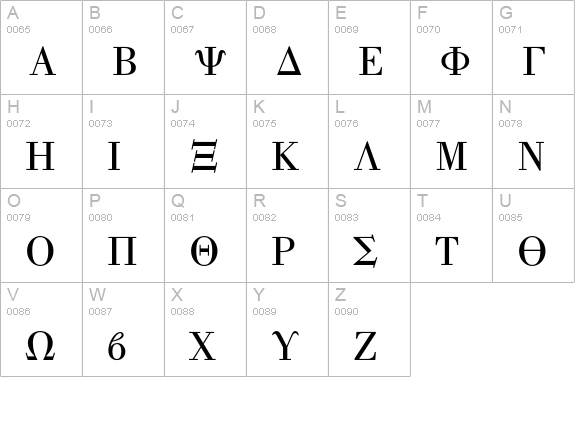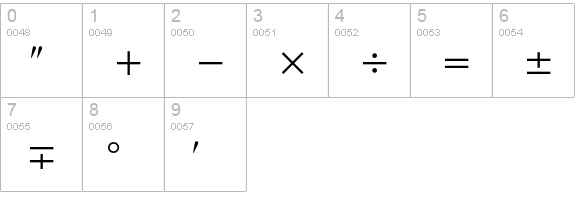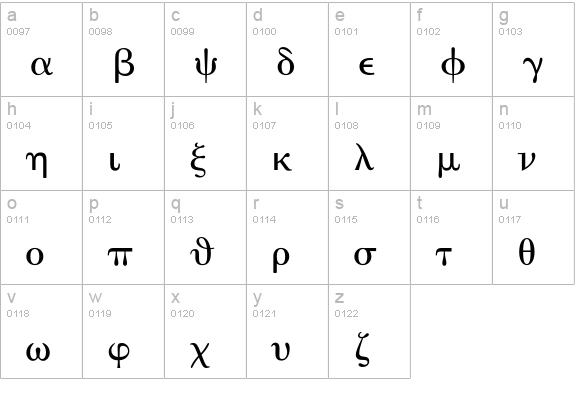
Universal Math 1 Font Details
Introducing Universal Math 1, a remarkable font that combines both elegance and functionality to enhance your mathematical equations and expressions. This font is the perfect companion for students, educators, and professionals alike, looking to present mathematical concepts in an aesthetically pleasing and visually engaging manner. Universal Math 1 offers a comprehensive range of symbols, operators, and mathematical notations, meticulously designed to ensure clarity and precision in every equation. With its sleek and modern design, this font effortlessly blends seamlessly into any document or presentation, adding a touch of professionalism and sophistication. But what truly sets Universal Math 1 apart is its accessibility. We believe that knowledge should be freely accessible to all, and that's why we are proud to offer this font completely free of charge. You can easily download Universal Math 1 at FontsMarket.com, where we strive to provide a wide selection of high-quality fonts to suit every need. Whether you're a student working on a math assignment, a teacher preparing a lesson, or a scientist publishing groundbreaking research, Universal Math 1 will undoubtedly be your go-to font. Its versatility and ease of use make it a valuable tool in any mathematical endeavor, enabling you to effortlessly communicate complex concepts with clarity and precision. So why settle for ordinary math fonts when you can elevate your work to new heights with Universal Math 1? Download it today from FontsMarket.com and experience the power of exceptional typography in your mathematical expressions. Unleash your creativity and let Universal Math 1 be your trusted companion in unraveling the mysteries of the numerical world.